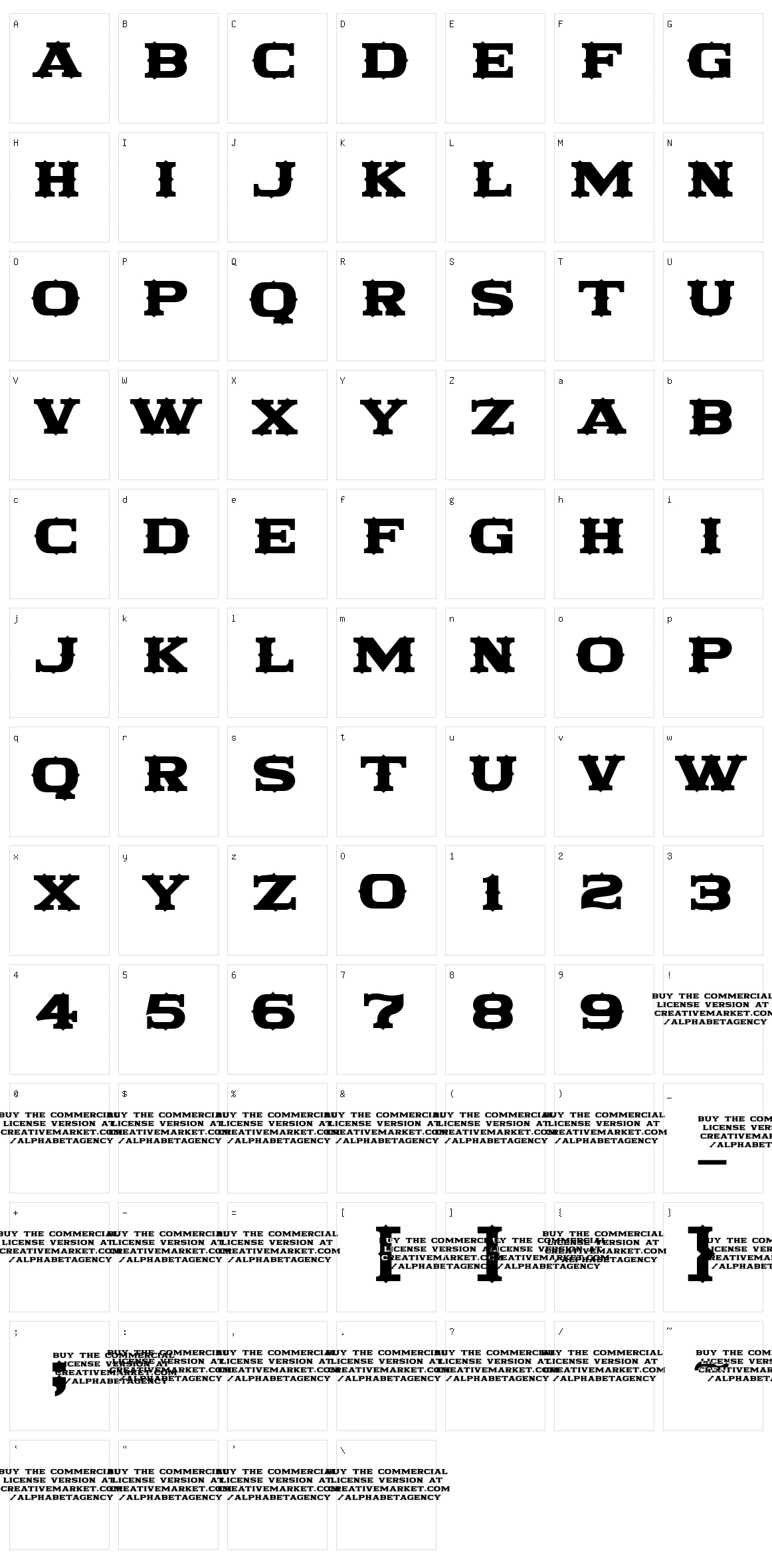
The free font Peacemaker is carefully designed by Jonathan Swinn, showcasing a thoughtful balance of creativity and usability and falls under the Western font style. When you download the ZIP file, it contains only 3913.91 KB of font files, making it lightweight and quick to download. Please review the license details below to understand permitted usage and distribution rights. If license information is not available, we recommend using this font for personal projects only or contacting the author directly for commercial usage permissions.